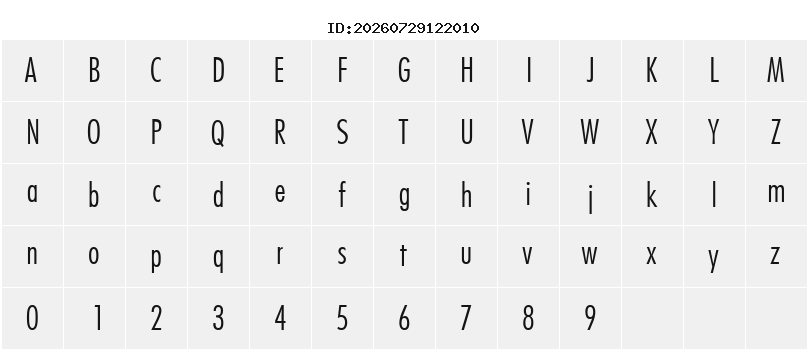
KudosLightCondSSK Preview
• Font Name: KudosLightCondSSK
• Font ID: Macromedia Fontographer 4.1 KudosLightCondSSK Bold
• Full Font Name: KudosLightCondSSK Bold
• Version: Macromedia Fontographer 4.1 8/4/95
• PostScript Name: KudosLightCondSSKBold
• Character Count: 252
About KudosLightCondSSK.ttf
KudosLightCondSSK.ttf is a modern, elegant sans-serif font designed for ultimate readability and visual harmony. Perfect for branding, headlines, web design, and print materials.